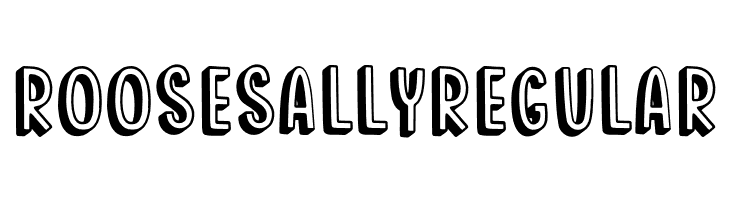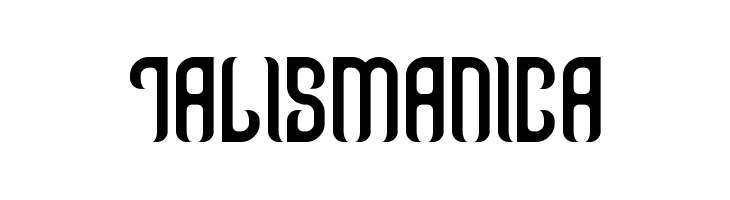
( Fonts by The Docallisme )
A playful, bold, hand-drawn font with outlined characters.
( Fonts by Skiiller Studio )
A bold, playful font with rounded, bubbly characters.
( Fonts by Peter Wiegel - www.peter-wiegel.de )
A bold, dynamic script font with connected characters and a strong presence.
( Fonts by Mans Greback - www.mawns.com )
A bold, decorative font with sweeping strokes and intricate curves.
A modern, geometric font with thin lines and a clean, minimalist style.
A modern, rounded typeface with a friendly and approachable design.
( Fonts by KLoNk - Philippe Dallaire )
A bold, geometric font with characters enclosed in black circles, offering a modern and striking appearance.
A bold, authoritative font with strong, consistent strokes and excellent legibility.
A bold, shadowed font with a modern and artistic style.